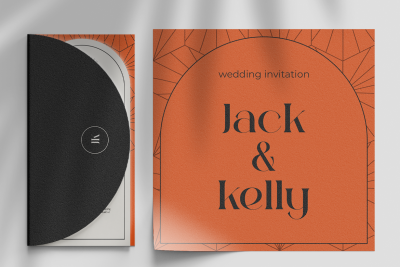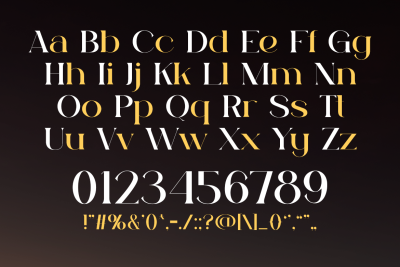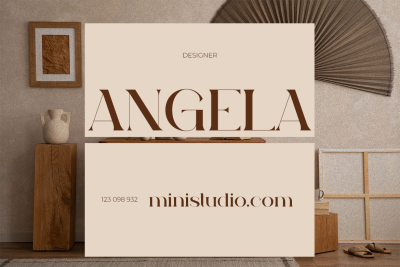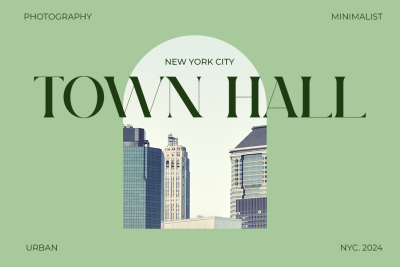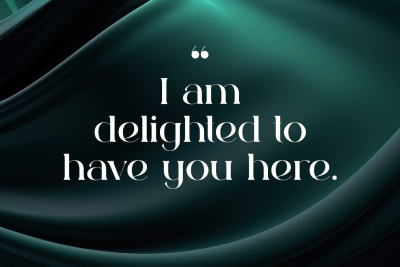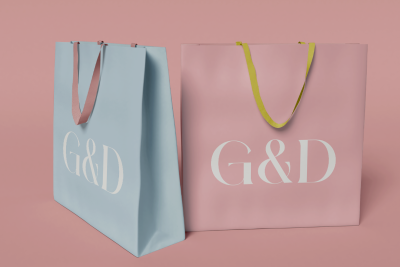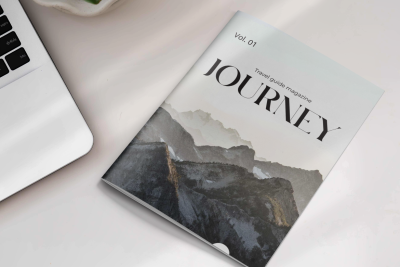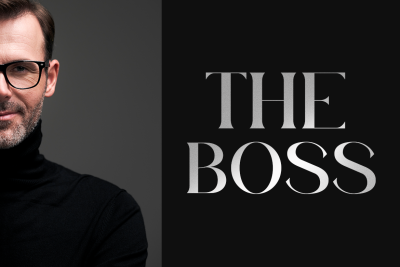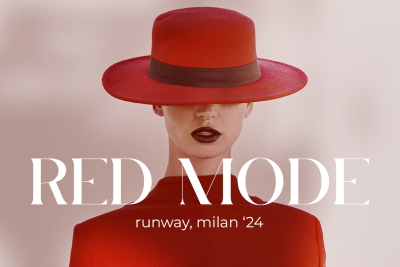
Instagram Font AQUILA
AQUILA
Instagram Font AQUILA is a strikingly modern and sophisticated typeface designed to make a bold statement. Its sleek, high-contrast strokes and refined serifs exude luxury, elegance, and power, making it an excellent choice for designs that require a sense of authority and style. Furthermore, AQUILA’s carefully crafted characters balance sharp edges with soft curves, creating a unique harmony between strength and grace.
This font’s minimalistic yet expressive design makes it stand out in both digital and print mediums. Whether used in bold headlines or subtle branding, AQUILA’s versatility allows it to adapt to various creative projects. Additionally, its clean and sharp appearance ensures excellent legibility while maintaining a visually stunning aesthetic. The refined details in each letterform make AQUILA not just a font but a design centerpiece.
Instagram Font AQUILA Who Is It For?
AQUILA is ideal for professionals and creatives looking to make a lasting impression with their designs. Its high-end aesthetic appeals to a variety of markets, including:
1. Luxury Brands and Businesses: AQUILA’s elegant and powerful design makes it perfect for luxury products such as jewelry, high-fashion apparel, and premium services. It communicates exclusivity and sophistication, ensuring that your brand stands out.
2. Editorial Designers: The font works exceptionally well in magazines, portfolios, and brochures. Its clean lines and sharp contrast enhance the readability of headings while adding a layer of class and modernity to any publication.
3. Social Media Influencers and Creators: AQUILA is a perfect choice for Instagram posts, stories, and branding. Its bold yet refined style ensures your content grabs attention and conveys professionalism and creativity.
4. Event Planners and Wedding Designers: For those planning luxurious events or weddings, AQUILA elevates invitations, menus, and other materials with its graceful and polished aesthetic. It creates a timeless look that reflects the grandeur of special occasions.
5. Creative Professionals: Graphic designers, art directors, and content creators will appreciate AQUILA’s versatility. Its adaptability to both minimalistic and elaborate designs makes it a go-to font for a wide range of projects.
In conclusion, Instagram Font AQUILA is a perfect blend of modernity and sophistication. Its ability to captivate viewers and adapt to various design needs makes it a valuable asset for anyone aiming to create visually stunning and impactful work. Whether for branding, social media, or editorial design, AQUILA is a font that consistently delivers elegance and style.